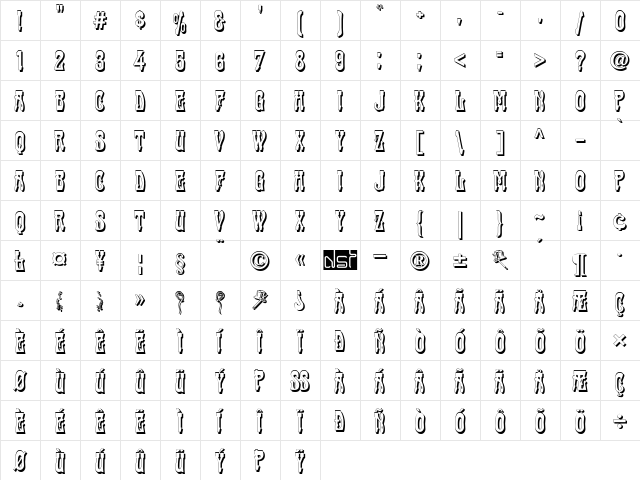
CabaretShadow Regular
Design Context for CabaretShadow
CabaretShadow is built around its visual character rather than neutral utility - its distinctive forms are designed to make an impression at display sizes.
Font Pairing: Pair with a clean neutral sans-serif for body copy to let CabaretShadow's character lead without overwhelming the composition.
Pro Tip: Use CabaretShadow exclusively at display sizes - it was designed to be seen, not read at length. Let a neutral companion handle body copy.